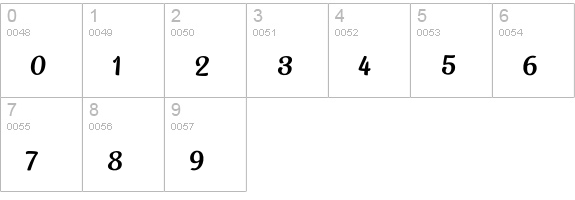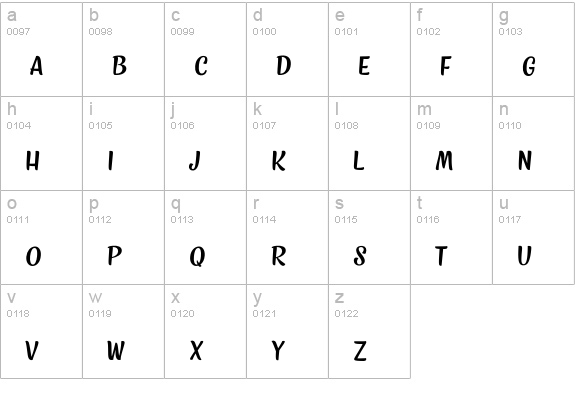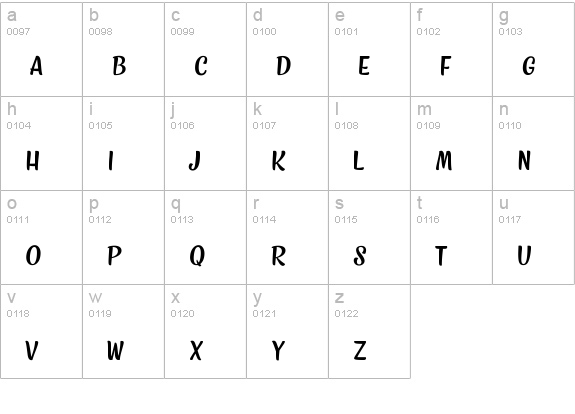
Introducing Peaches and Cream Caps font - a delightful and charming typeface that exudes elegance and sophistication. Featuring elegant caps with a touch of playfulness, this font is perfect for adding a touch of whimsy to your designs. The Peaches and Cream Caps font is versatile and can be used for a variety of projects, from invitations to branding to social media graphics. The best part? Peaches and Cream Caps font is available for free download at FontsMarket.com, making it accessible to all designers and creatives looking to elevate their work with a touch of sophistication and flair. Don't miss out on this opportunity to add a touch of sweetness to your designs with the Peaches and Cream Caps font - download it for free today!